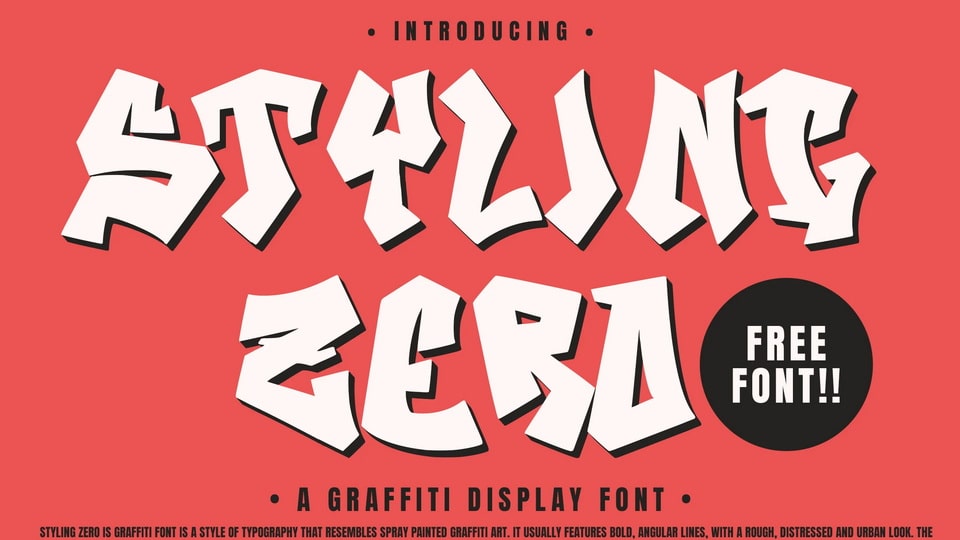
Download Styling Zero font, a graffiti typeface that resembles spray painted graffiti art. Styling Zero font features bold, angular lines, with a rough, distressed and urban look.
Designer: Asep Rendi